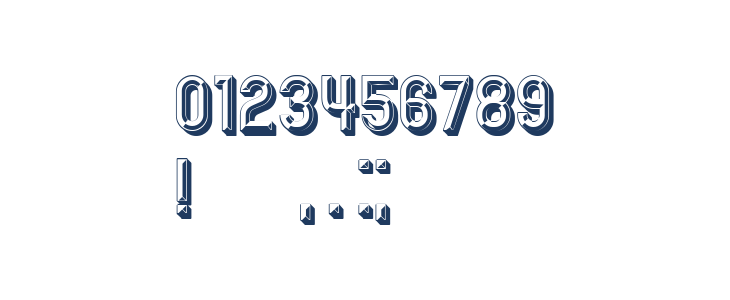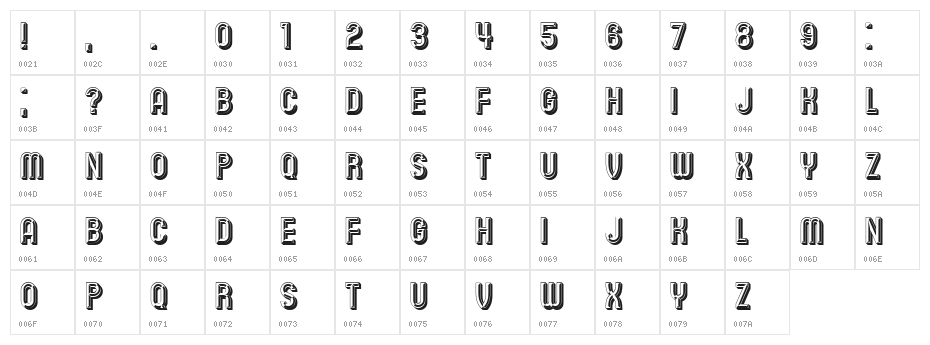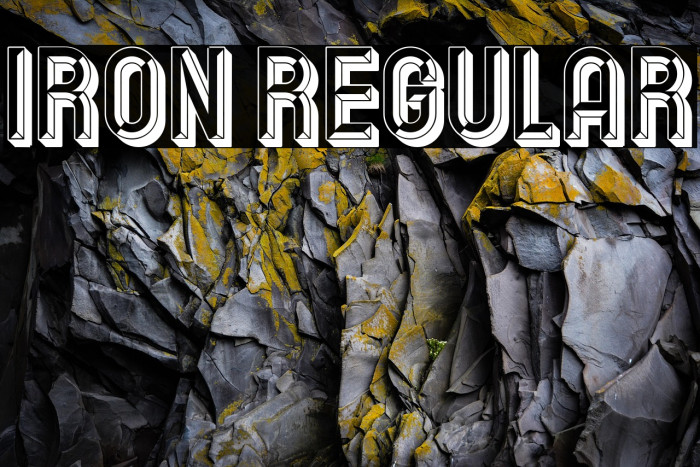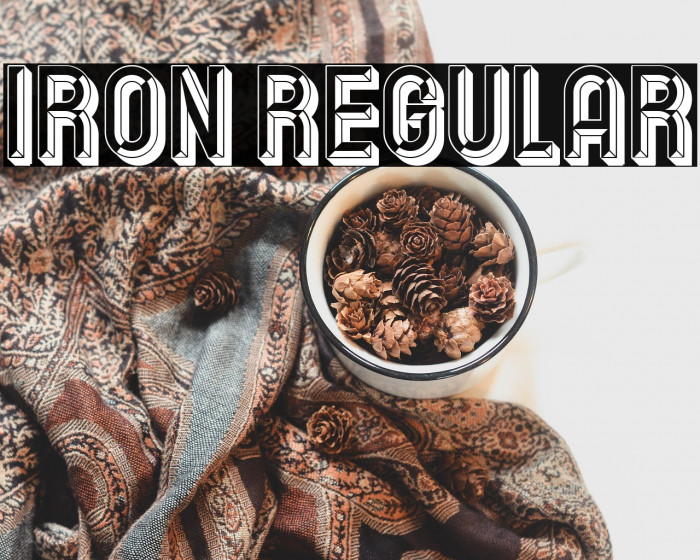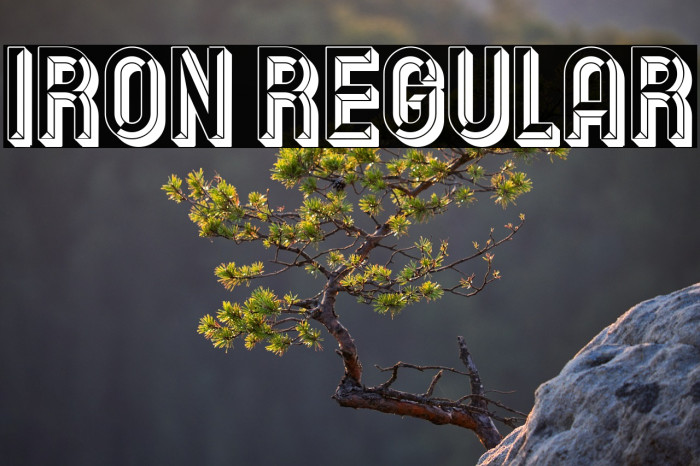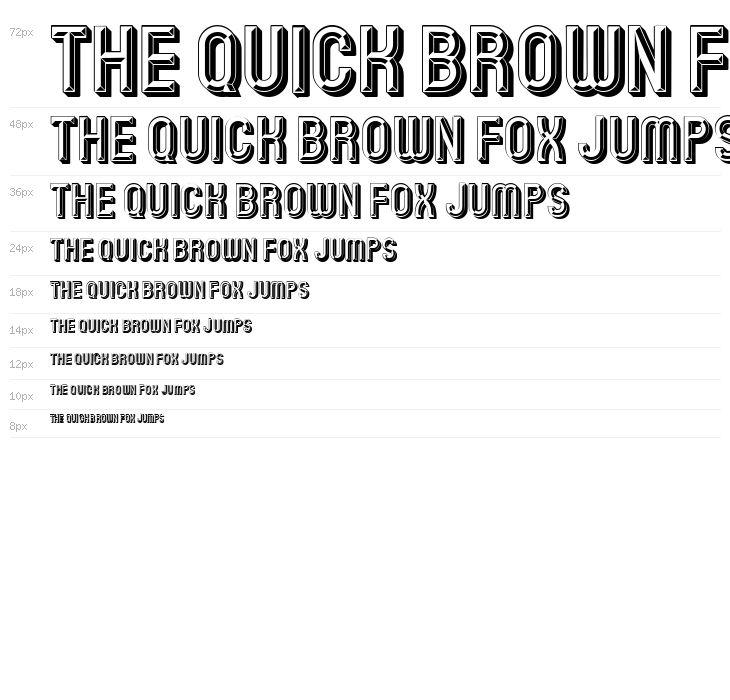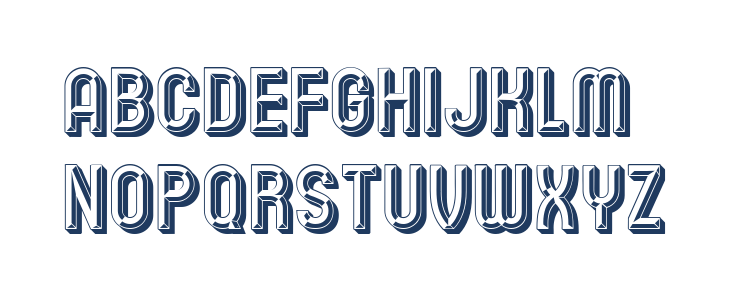
Iron Regular Font
Iron Regular Description
This font features a bold, three-dimensional design with a strong, industrial aesthetic. The characters are uppercase and numerals, each with a shadow effect that gives them a sense of depth and solidity. The lines are clean and geometric, with sharp angles and a consistent stroke width that enhances the boldness of the font. The style is reminiscent of vintage signage or machinery, making it ideal for projects that require a strong, impactful visual presence. The font's unique structure and shadowing make it stand out, while maintaining readability.
| Overall Style | Vintage, Industrial |
| Use Case | Headlines, Logos, Signage |
| Proposed Projects | Ideal for posters, logos, branding, and signage that require a strong, impactful presence. |